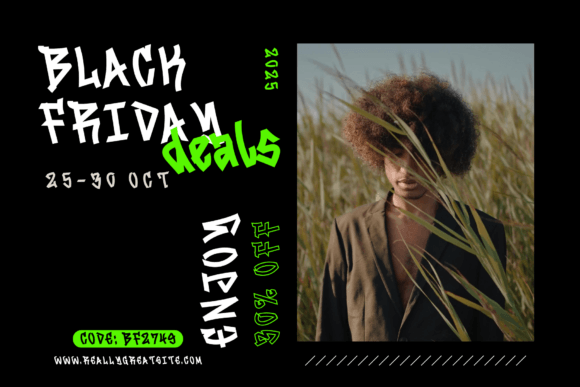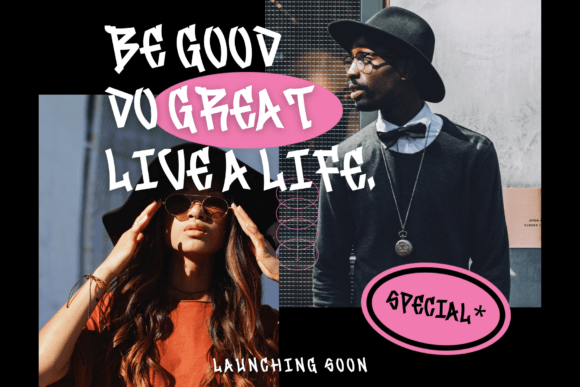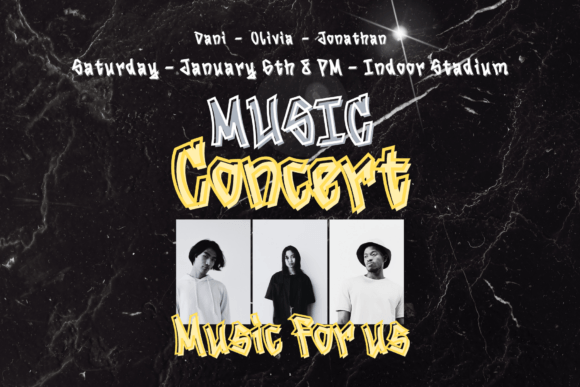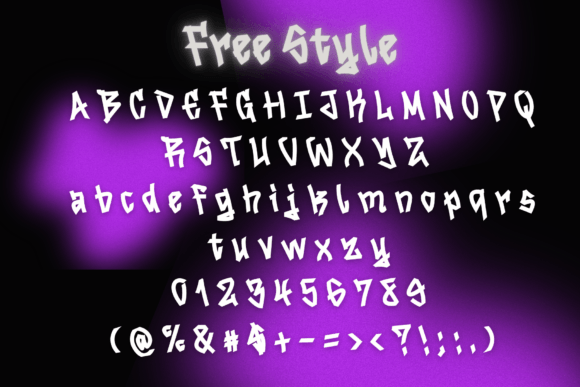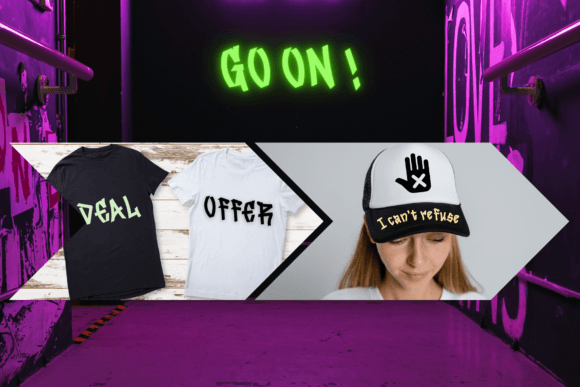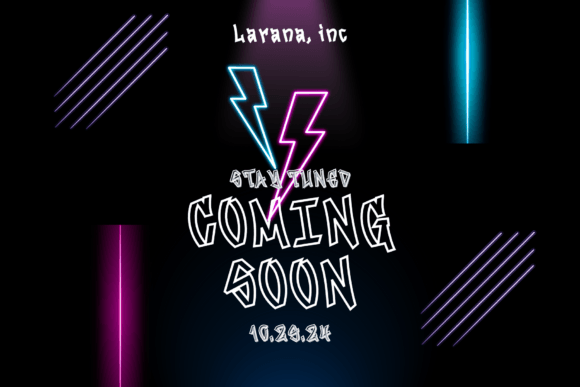
The Ultimate Guide to Free Style Font: Unleashing Creativity in Your Designs
Have you ever been in the middle of a design project, and suddenly, you’re stuck on finding the perfect font? I recall a recent experience where I was working on a fun craft project for a client, and I just couldn’t find a font that captured the playful, carefree vibe I was going for. That’s when I stumbled upon the Free Style Font, and it completely transformed my design. In this article, we’ll dive into the world of Free Style Font, exploring its features, uses, and everything in between.
A Personal Review: What I Love About Free Style Font
So, what makes Free Style Font so special? Here are a few things that I absolutely love:
- ✨ Casual and playful look: Free Style Font is inspired by street fonts, giving it a unique, laid-back vibe that’s perfect for creative projects.
- ✅ Ease of use: This font is incredibly easy to use, making it accessible to designers of all levels.
- 🎉 Versatility: Whether you’re working on a craft project, a social media graphic, or a website, Free Style Font can be used in a variety of contexts.
While Free Style Font is an amazing addition to any design project, there are a few quirks to keep in mind:
- 🤔 Limited formal use: Due to its casual nature, Free Style Font might not be the best choice for formal or professional projects.
- ⚠️ Legibility at small sizes: As with any font, legibility can be an issue at very small sizes. Make sure to test it out before finalizing your design.
The creator of Free Style Font was inspired by the vibrant, eclectic world of street art and graffiti. They aimed to capture the playful, carefree essence of street fonts and make it accessible to designers of all levels. The result is a font that’s both fun and versatile.
| Font Name | Free Style Font |
| What type of projects is Free Style Font best suited for? | Free Style Font is perfect for creative projects, such as craft projects, social media graphics, and websites. |
| Is Free Style Font available in different weights or styles? | Free Style Font may be available in different weights or styles, depending on the font package. Check with the font provider for more information. |
In conclusion, Free Style Font is an amazing addition to any design project, offering a unique blend of playfulness and versatility. With its ease of use and wide range of applications, it’s perfect for designers, crafters, and creative hobbyists alike. So go ahead, get creative, and make your designs stand out with Free Style Font!